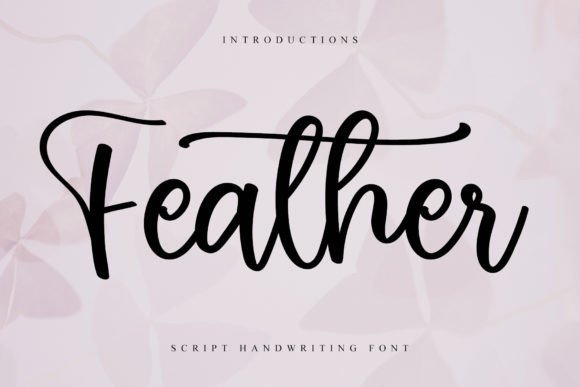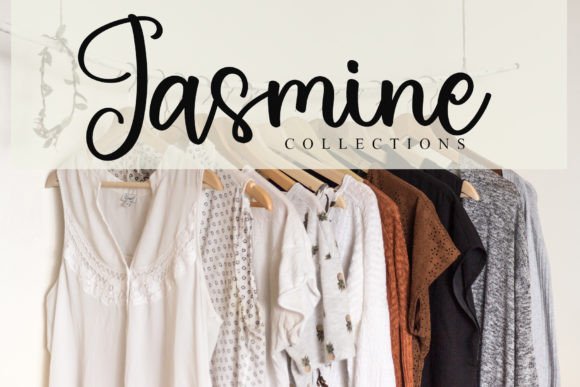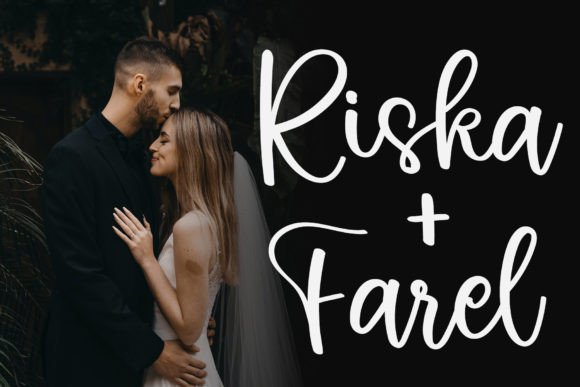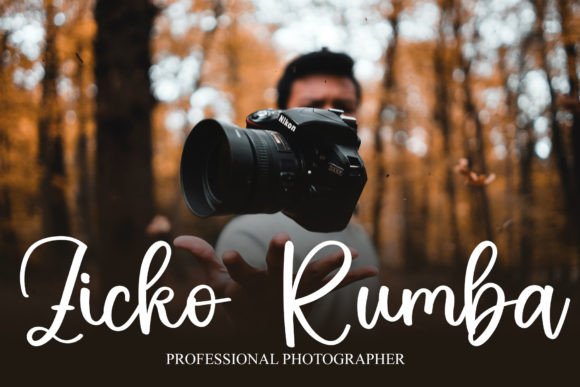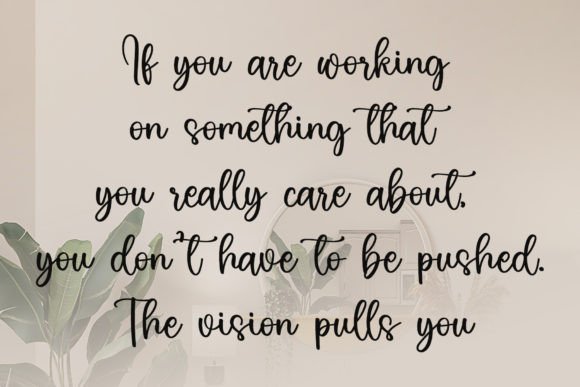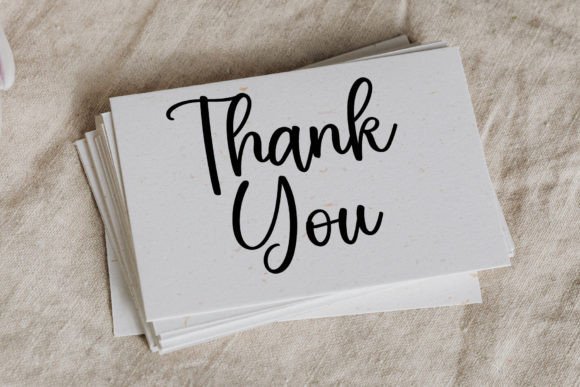
Discover the Beauty of Handwritten Charm with Feather Font
As a designer, there’s nothing quite like the thrill of bringing a new project to life. You’ve poured over inspiration boards, brainstormed ideas, and finally settled on the perfect concept. But what’s the one element that can elevate your design from good to great? For many of us, it’s the perfect font. And that’s where Feather Font comes in – a stylish handwritten font that adds a touch of timeless elegance to any project.
With its balanced and varied design, Feather Font is more than just a pretty face. It’s a versatile tool that can add sophistication and charm to everything from wedding invitations to brand logos. Whether you’re a seasoned pro or just starting out, Feather Font is an invaluable asset in your design toolkit – and a must-have for anyone looking to add a little extra flair to their work.
Key Features of Feather Font
- Character Set: The font features a unique set of 1,100 glyphs, including a wide range of punctuation, symbols, and special characters, making it ideal for creative and design-intensive projects.
- Unique Characteristics: Feather Font boasts a distinctive, hand-drawn feel with subtle texture and imperfections, adding a touch of personality to any design.
- Font Weight and Style: The font family includes 12 different weights, from Extra Light to Black, and 6 styles, including Regular, Italic, Bold, Bold Italic, Light, and Light Italic, offering versatility and flexibility for various design applications.
Feather Font Review
Overall, I think the Feather Font is a lovely addition to any design project, but like any font, it has its strengths and weaknesses.
- The Feather Font is incredibly versatile and can be used for a wide range of designs, from minimalist to bold.
- The font is incredibly legible, even at smaller sizes, making it perfect for body text or headings.
- The subtle feather-inspired details add a touch of whimsy and personality to any design.
- The Feather Font may be too playful for more formal or professional designs.
- The font can feel a bit too uniform and lacking in variation, which may not be ideal for longer blocks of text.
- The font may not be suitable for smaller screens or mobile devices, as the feather details may become lost in the smaller resolution.
The Feather Font is a charming and visually appealing font that is perfect for designs that require a touch of personality and whimsy. However, it may not be the best choice for more formal or professional projects, or for designs that require a lot of text.
The Feather Font is ideal for:
- Infographics and data visualization
- Marketing materials and advertisements